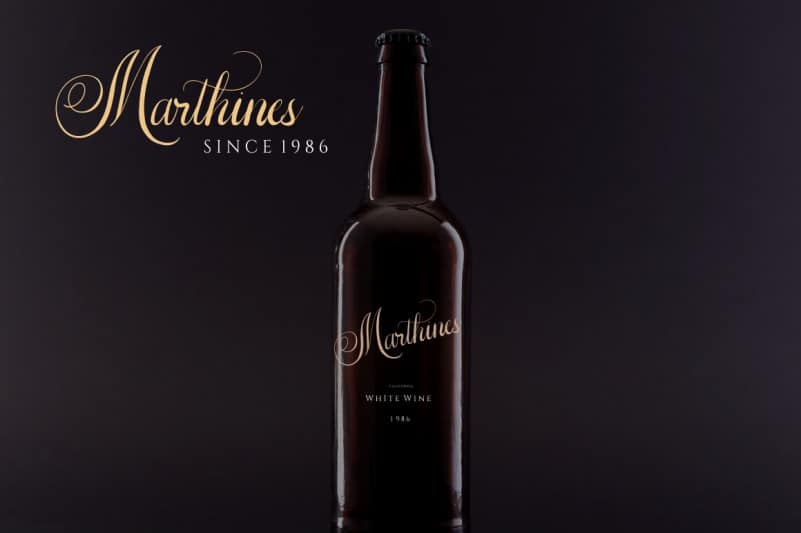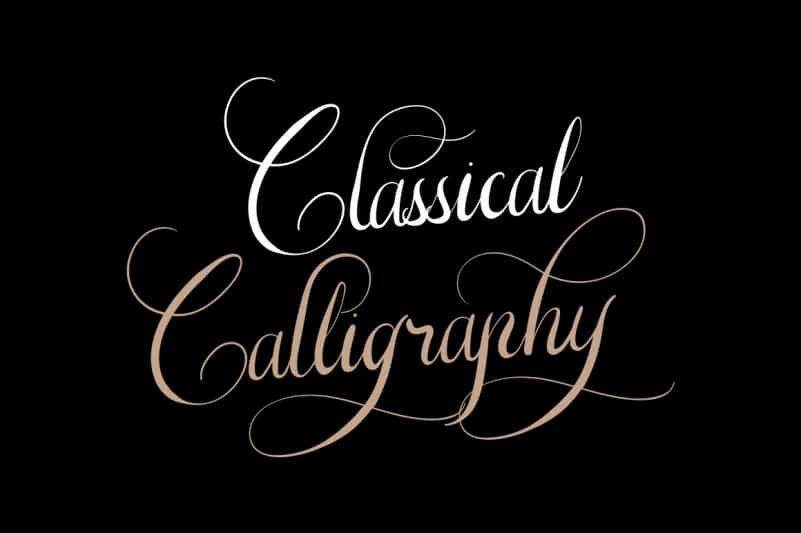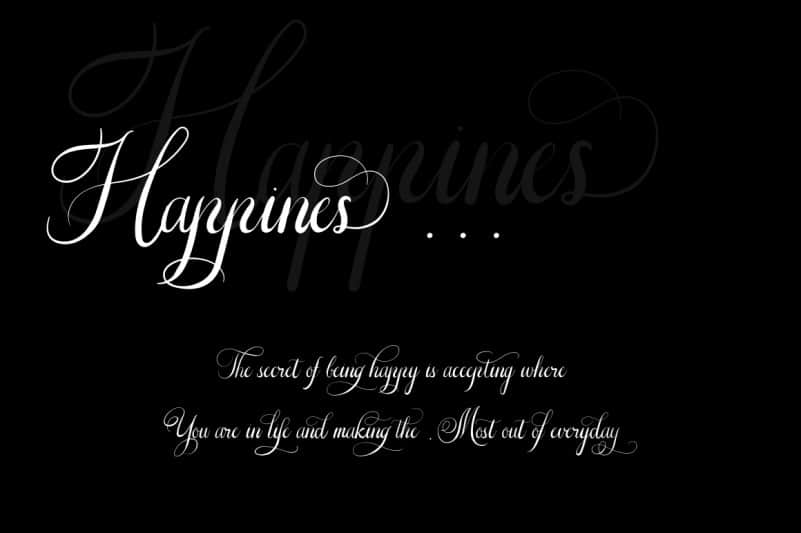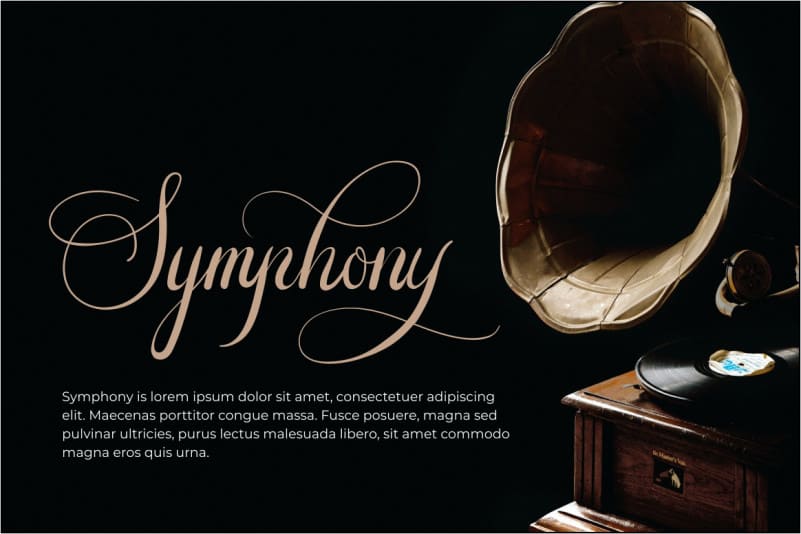
The Adalyne Script Font is calligraphy font with a classic style and a touch of elegance. The Adelyne Script made by hand, designing a classic font but having a modern element in it, which makes it particularly suitable for wedding media, book covers, greeting cards, logos, branding, business cards and certificates, in fact for any design work that requires a clasic, formal or luxury look.